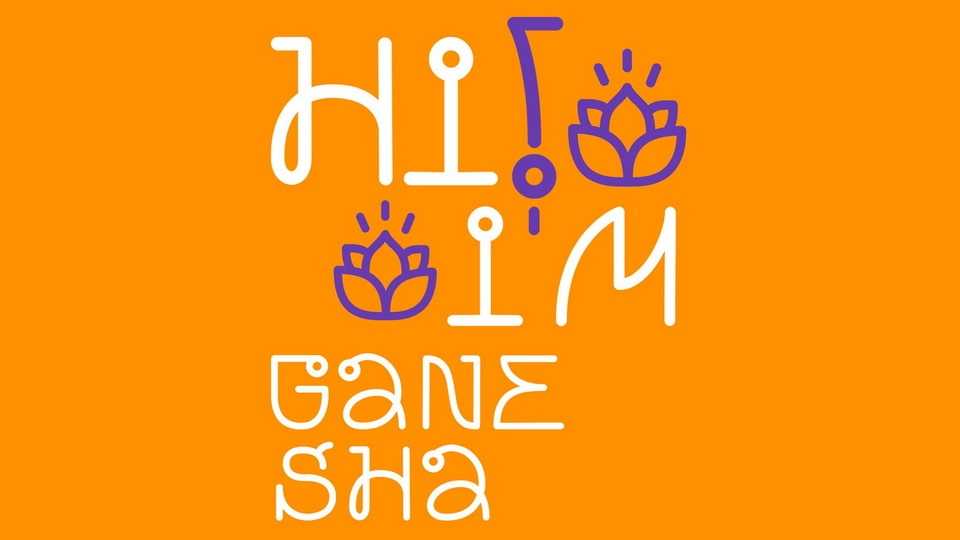
Download Ganesha font, an oriental guest who arrived from sunny India. He is hospitable and good-natured, absorbing the best from all over this colorful country. Ganesha will tell you a thousand stories and legends, advise you on the most delicious tea and go to morning yoga with you.
Designer: Ksenia Karnaukhova